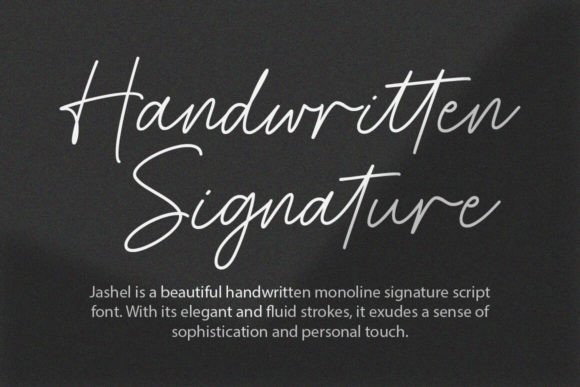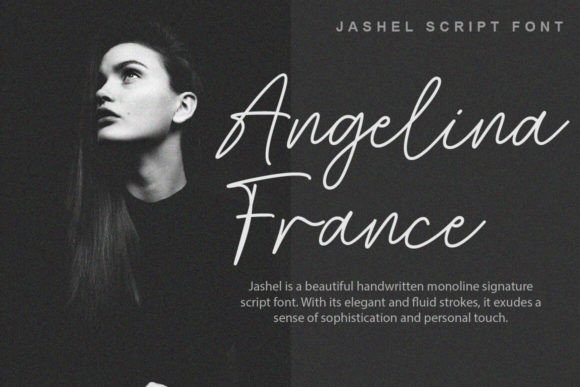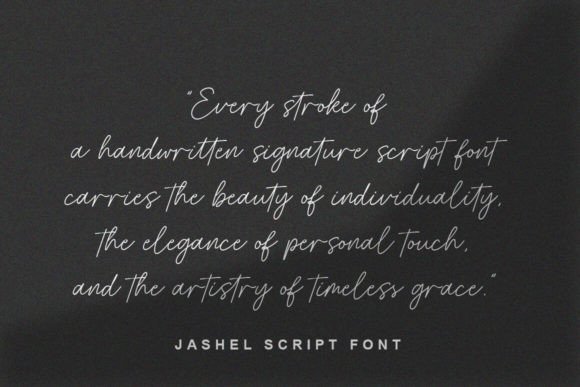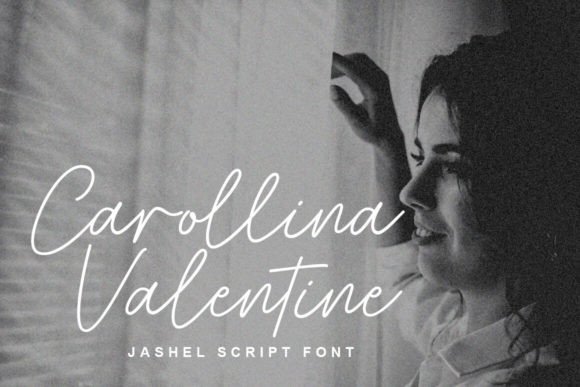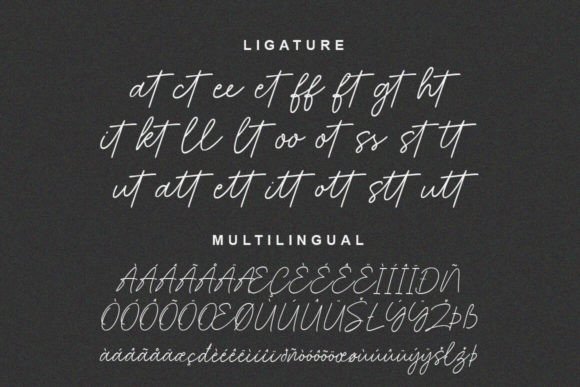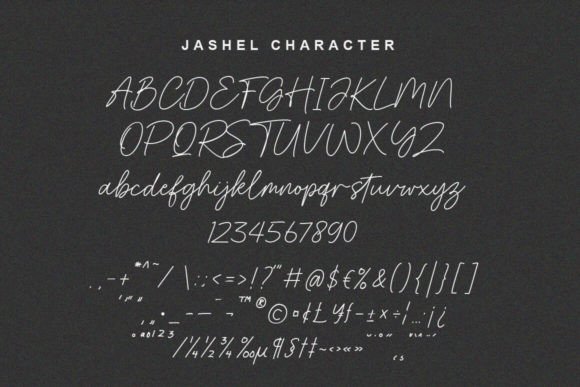
Introduction to Jashel Font
Jashel Font is a stunning handwritten signature script font.
With its graceful and flowing lines, this font closely resembles the strokes of a carefully crafted hand signature Whether used for branding, logos, invitations, or other creative endeavors.